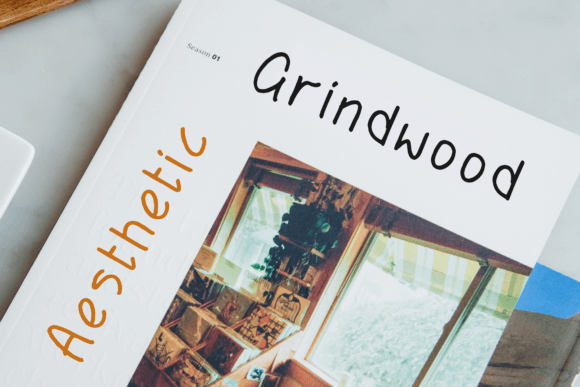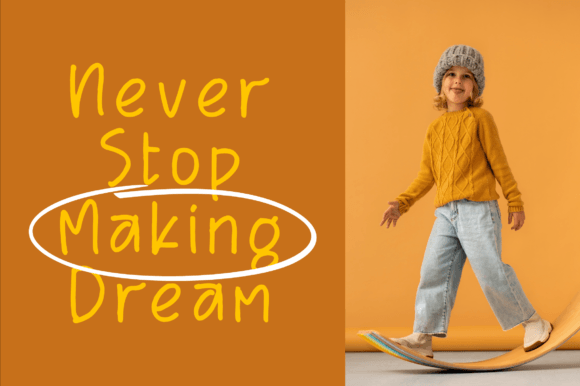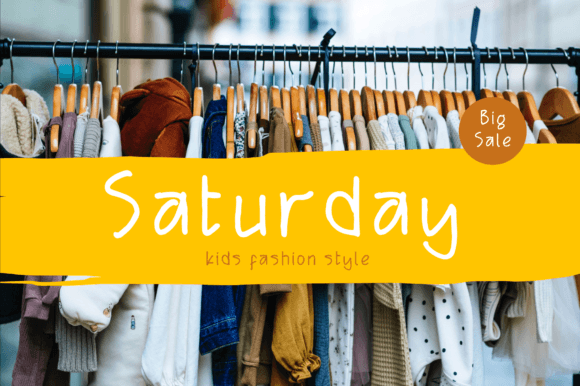
Introduction to Rageon Font
Do you remember the moment when your creative project finally came together? The feeling of satisfaction, excitement, and relief all mixed into one? It’s a moment that designers strive for, and it’s often the result of using the right design resources. One such resource is the Rageon Font, a modern and assertive script font that can elevate any creation.
Whether you’re working on a logo, a poster, or a digital product, the Rageon Font is an incredible asset to have in your library. Its high quality and versatility make it a valuable addition to any designer’s toolkit, and the best part? It’s available for free download, allowing you to experiment with it on a transparent background and see the impact it can have on your design.
Key Features of Rageon Font
- High-quality design resource with a unique, bold style perfect for creative projects.
- Features a transparent background, making it ideal for use on various backgrounds.
- Designed with a large character set, including Latin and Cyrillic scripts, for versatile use.
- Comes in a single weight, making it easy to use for both headings and body text.
- Perfect for use in graphic design, digital art, and other creative projects that require a bold, eye-catching font.
Honest Review: Rageon Font
I recently stumbled upon the Rageon Font and was excited to give it a try for my latest design project. As a designer, I’m always on the lookout for high-quality fonts that can elevate my creative work.
What works well: ✨ The Rageon Font has a unique, modern aesthetic that I think would be perfect for a variety of design projects. It’s clean, easy to read, and has a lot of character. I also appreciate that it comes with a transparent background, which makes it super versatile and easy to use.
Here are some of my favorite features:
- High-quality design: The Rageon Font is crisp and clear, making it perfect for print or digital design.
- Transparent background: As I mentioned earlier, this feature makes it easy to use the Rageon Font in a variety of design contexts.
Limitations: ⚠️ While I love the Rageon Font, I do think it could benefit from a few more font styles to offer more versatility. Additionally, some of the letters can be a bit tricky to read at small font sizes.
Overall, I think the Rageon Font is a great addition to any designer’s toolkit. It’s a high-quality font that’s perfect for creative projects, and it’s free to boot!
The Rageon Font is a high-quality design resource that offers a unique and creative way to enhance your projects. With its transparent background, this font is perfect for designers who want to add a touch of sophistication to their work.
The Rageon Font is perfect for a variety of creative projects, including:
- Typography-based designs
- Marketing materials